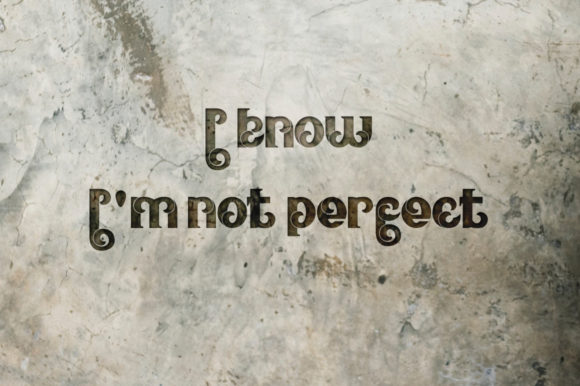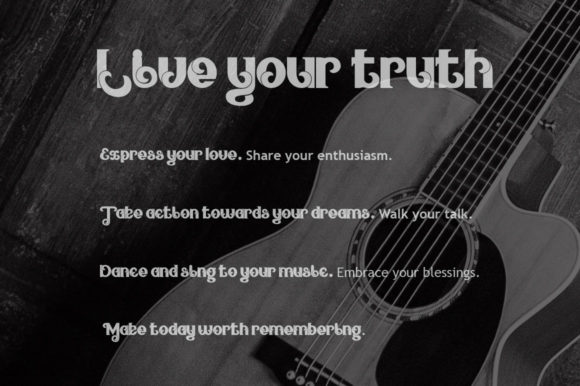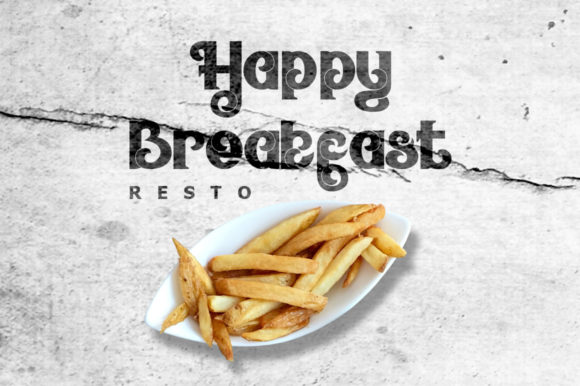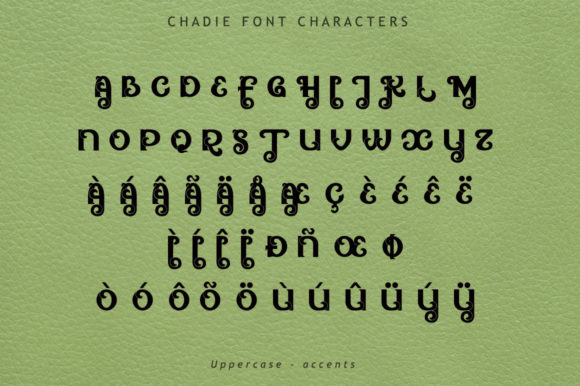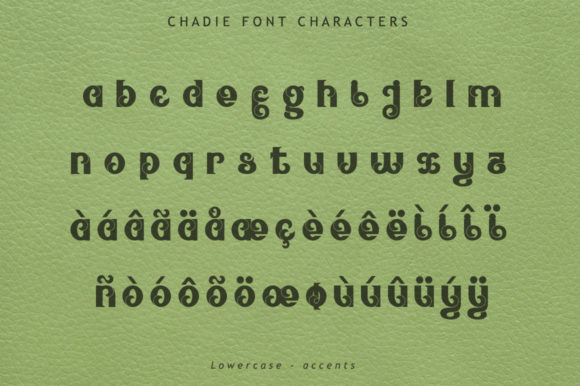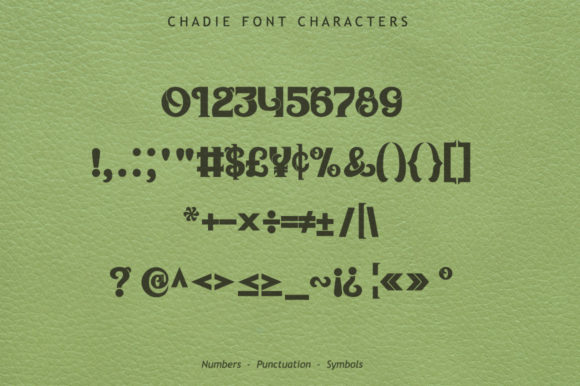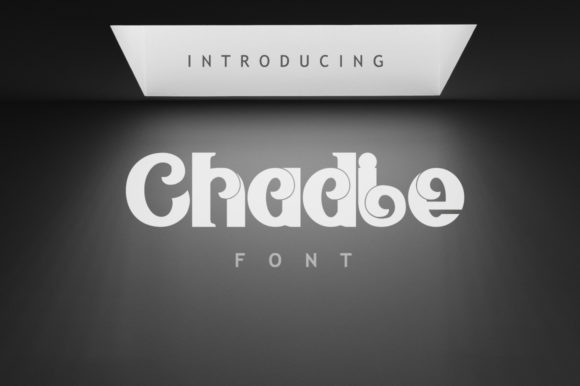
Introducing Chadie Font: The Perfect Blend of Fun and Elegance
Are you tired of using the same old fonts for your design projects? Look no further than Chadie Font, a fun and cute display font that is sure to add a touch of personality to your creations. With its unique blend of rounded and sharp edges, Chadie Font is the perfect choice for designers and crafters looking to add a bit of elegance to their work.
What Makes Chadie Font So Special?
Chadie Font is a display font that features a unique combination of rounded and sharp edges, giving it an elegant twist that sets it apart from other fonts. The rounded edges give the font a soft and playful feel, while the sharp edges add a touch of sophistication and refinement. This blend of styles makes Chadie Font perfect for a wide range of design projects, from fun and playful crafts to more elegant and sophisticated designs.
Key Features of Chadie Font
- Unique blend of rounded and sharp edges: This distinctive feature gives Chadie Font its elegant twist and sets it apart from other fonts.
- Fun and playful feel: The rounded edges of Chadie Font give it a soft and playful feel that is perfect for fun and creative design projects.
- Sophisticated and refined: The sharp edges of Chadie Font add a touch of sophistication and refinement, making it perfect for more elegant and sophisticated designs.
- High-quality design: Chadie Font is designed with high-quality craftsmanship in mind, ensuring that it looks great in any design project.
Uses for Chadie Font
Chadie Font is a versatile font that can be used for a wide range of design projects, including:
- Crafting: Chadie Font is perfect for crafters who want to add a personal touch to their projects. Use it to create fun and playful signs, cards, and other crafts.
- Graphic design: Chadie Font is a great choice for graphic designers who want to add a bit of personality to their designs. Use it to create eye-catching posters, flyers, and other marketing materials.
- Wedding and event planning: Chadie Font is a popular choice for wedding and event planners who want to add a touch of elegance to their designs. Use it to create beautiful wedding invitations, signs, and other event materials.
- Social media: Chadie Font is perfect for social media enthusiasts who want to add a bit of personality to their posts. Use it to create eye-catching graphics and quotes that will stand out on social media.
Tips for Using Chadie Font
Here are a few tips for using Chadie Font in your design projects:
- Use it as a display font: Chadie Font is designed to be used as a display font, so use it to add a bit of personality to your headings and titles.
- Experiment with different colors: Chadie Font looks great in a wide range of colors, so don’t be afraid to experiment and find the perfect color for your design.
- Pair it with other fonts: Chadie Font pairs well with a wide range of other fonts, so try pairing it with a serif or sans-serif font to create a unique and interesting design.
Chadie Font is a fun and cute display font that is sure to add a touch of personality to your design projects. With its unique blend of rounded and sharp edges, Chadie Font is the perfect choice for designers and crafters looking to add a bit of elegance to their work. Whether you’re creating fun and playful crafts or more elegant and sophisticated designs, Chadie Font is the perfect choice.